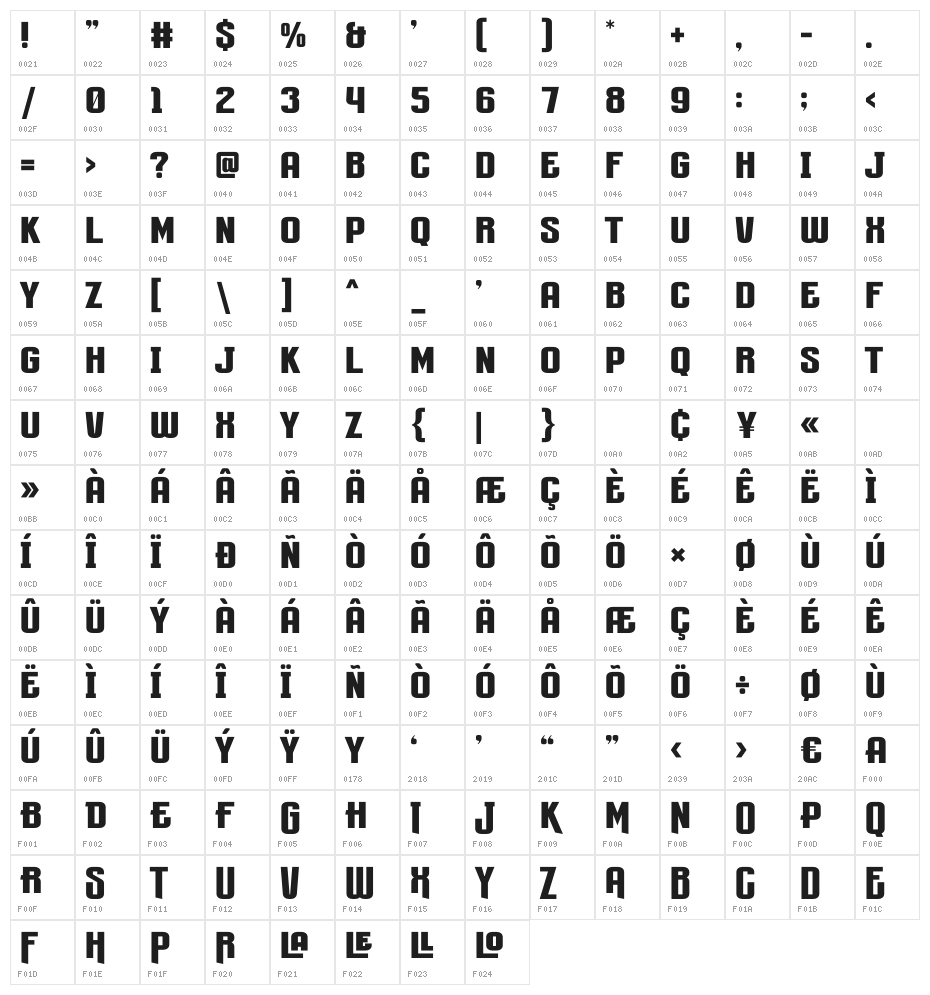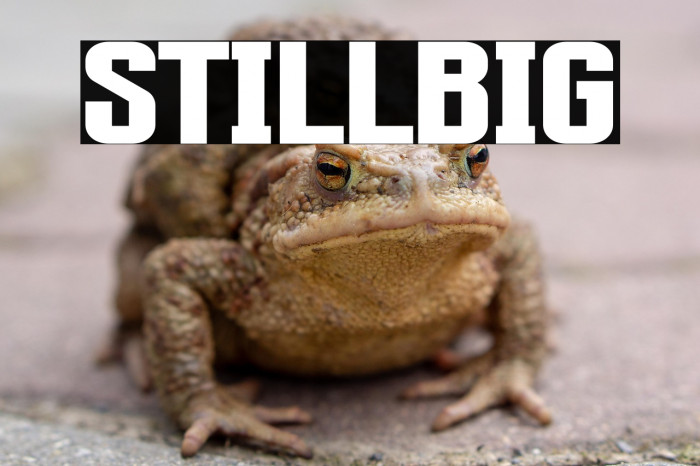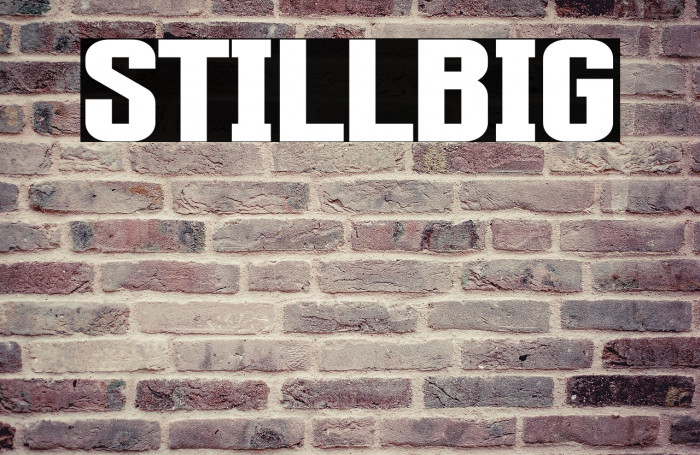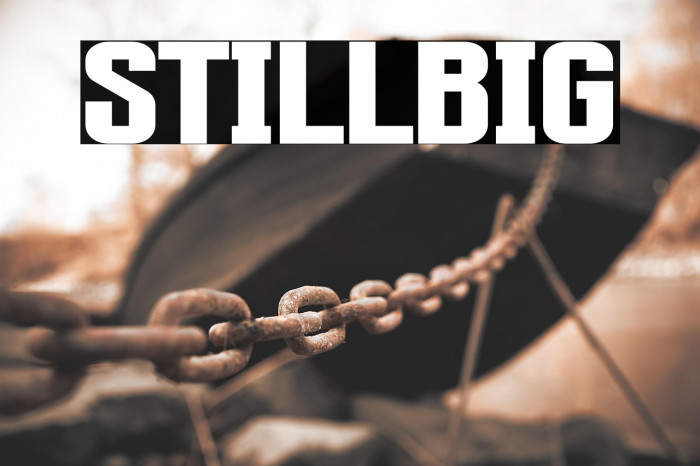
Stillbig Font
Stillbig Description
This font is characterized by its bold and robust appearance, featuring thick, uniform strokes that convey a sense of strength and impact. The uppercase letters are particularly striking, with a blocky, geometric design that ensures high readability. The lowercase letters maintain the same boldness, providing a cohesive look across different text cases. Numbers and special characters are equally bold, ensuring consistency throughout. The font's design is straightforward yet powerful, making it suitable for attention-grabbing headlines or impactful logos. Its clean lines and lack of embellishments give it a modern and professional feel.
| Proposed Projects | Ideal for branding, advertising, posters, and any project requiring a strong visual impact. |